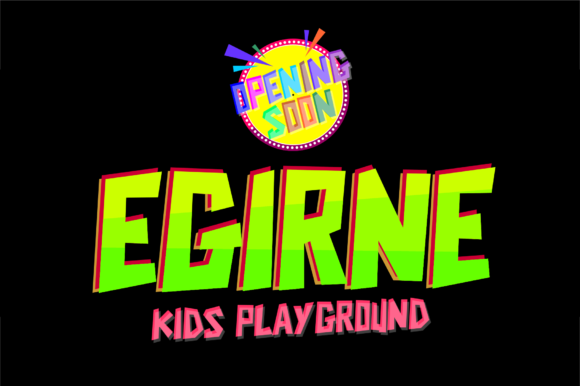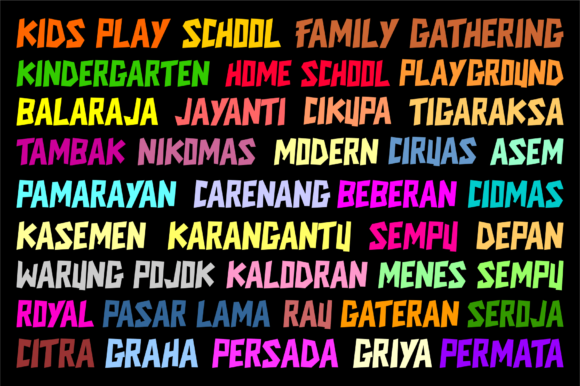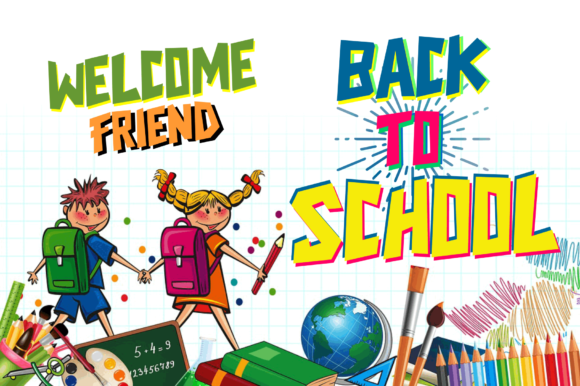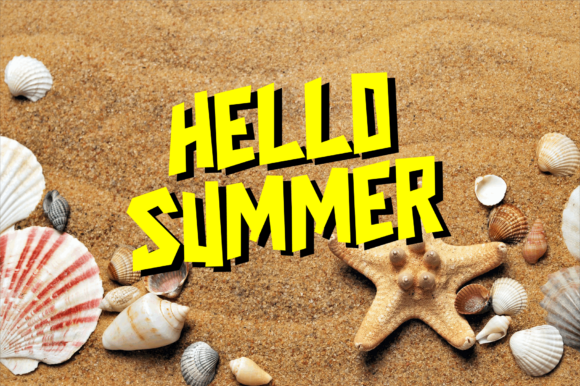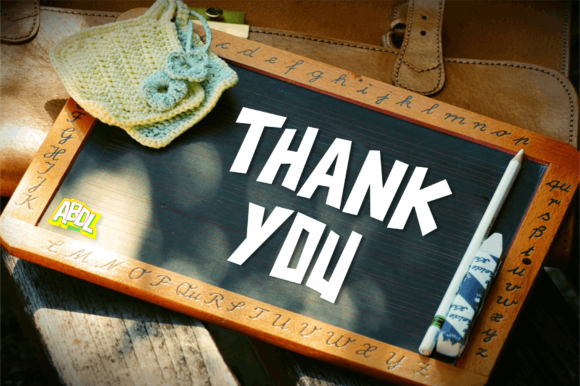
Discover Your New Favorite Font: Cikandei Font
Have you ever been working on a project, and suddenly, you stumble upon the perfect font? It’s bold, it’s eye-catching, and it perfectly captures the essence of your design. For many designers, that moment is what makes all the hard work worth it. It’s the thrill of seeing your ideas come to life in a font that truly makes a statement.
That’s exactly what Cikandei Font offers – a unique blend of coolness, boldness, and thickness that makes it perfect for any occasion. Whether you’re creating digital designs, crafting, making presentations, or designing greeting cards, this font has the potential to become your go-to choice. As a designer, having a versatile font like Cikandei Font in your arsenal can be a game-changer, allowing you to express your creativity and bring your ideas to life with ease.
Cikandei Font Key Features
- Font Family: Cikandei Font is a sans-serif font family, suitable for modern and minimalist designs.
- Unique Characteristics: Cikandei Font features a unique blend of modern and traditional elements, making it stand out in modern designs.
Cikandei Font Review
I recently had the chance to work with the Cikandei Font, and I must say it’s a decent addition to any designer’s toolkit. ✨ Here are some of its strengths and weaknesses.
- Unique design: The Cikandei Font has a distinctive and modern feel that sets it apart from other sans-serif fonts.
- Legibility: The font is highly legible, making it suitable for body text, headings, and even large-scale signage.
- Character set: The font includes a comprehensive set of characters, including Latin, Cyrillic, and Greek alphabets.
- ⚠️ Limited font weights: The Cikandei Font is available in a limited range of weights, which may not be ideal for complex designs that require multiple font weights.
- ⚠️ No italics: Unfortunately, the font does not include italics, which can make it difficult to create emphasis or add visual interest to text.
- ⚠️ Limited language support: While the font includes a range of alphabets, it may not be suitable for languages that require more complex character sets.
Overall, I would say that the Cikandei Font is a solid choice for designers looking for a modern, legible font. However, its limitations may make it less suitable for complex or nuanced designs.
Getting the Most Out of Cikandei Font
For the best results, use the Cikandei font in conjunction with bold and italic text styles to create a visually appealing and balanced design.
Experiment with different font sizes and colors to add emphasis and hierarchy to your design.
The Cikandei font is ideal for:
Logo designs
Branding materials
Marketing materials
Website headers and footers
Alternatives to Cikandei Font
Pacifico is a beautiful script font that is perfect for designs that require a touch of elegance and sophistication. It is ideal for use in wedding invitations, greeting cards, and other creative projects. Compared to Cikandei Font, Pacifico has a more refined and polished look, making it a great choice for high-end designs.
Great Vibes is a modern script font that is perfect for designs that require a sense of fun and playfulness. It is ideal for use in posters, social media graphics, and other creative projects. Compared to Cikandei Font, Great Vibes has a more energetic and youthful vibe, making it a great choice for designs that require a lot of personality.
Alex Brush is a elegant script font that is perfect for designs that require a touch of sophistication and refinement. It is ideal for use in wedding invitations, business cards, and other professional projects. Compared to Cikandei Font, Alex Brush has a more refined and polished look, making it a great choice for high-end designs.